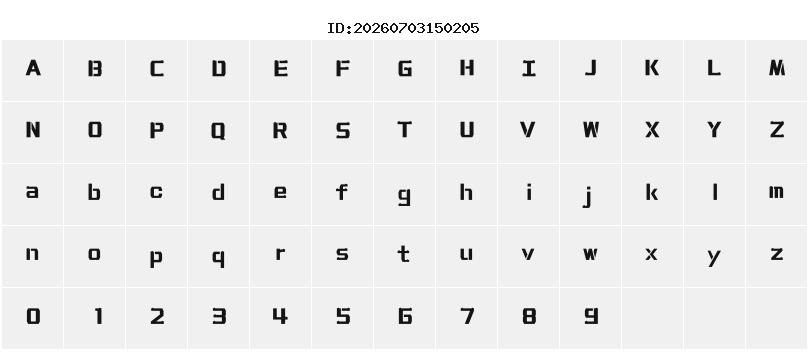
114-上首长城体 Preview
• Font Name: 114-上首长城体
• Font ID: 114-SS Chang Cheng Ti:Version 6.00
• Full Font Name: 114-上首长城体
• Version: Version 6.00 December 18, 2023
• PostScript Name: 114-SSChangChengTi
• Manufacturer: 上首造字
About 114-上首长城体.ttf
114-上首长城体.ttf is a modern, elegant sans-serif font designed for ultimate readability and visual harmony. Perfect for branding, headlines, web design, and print materials.